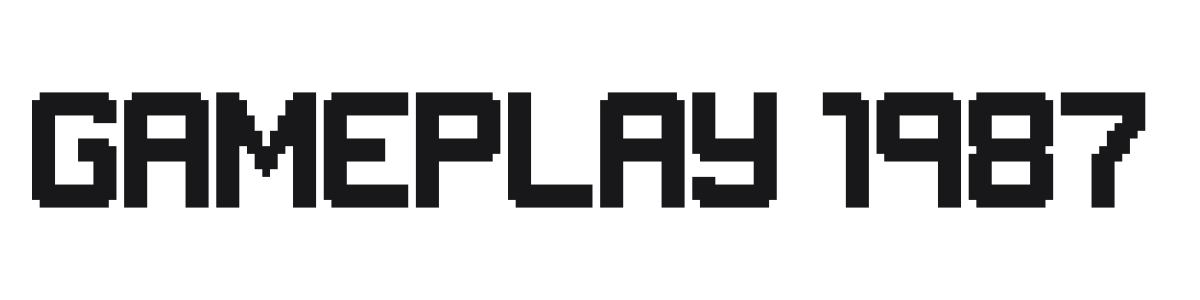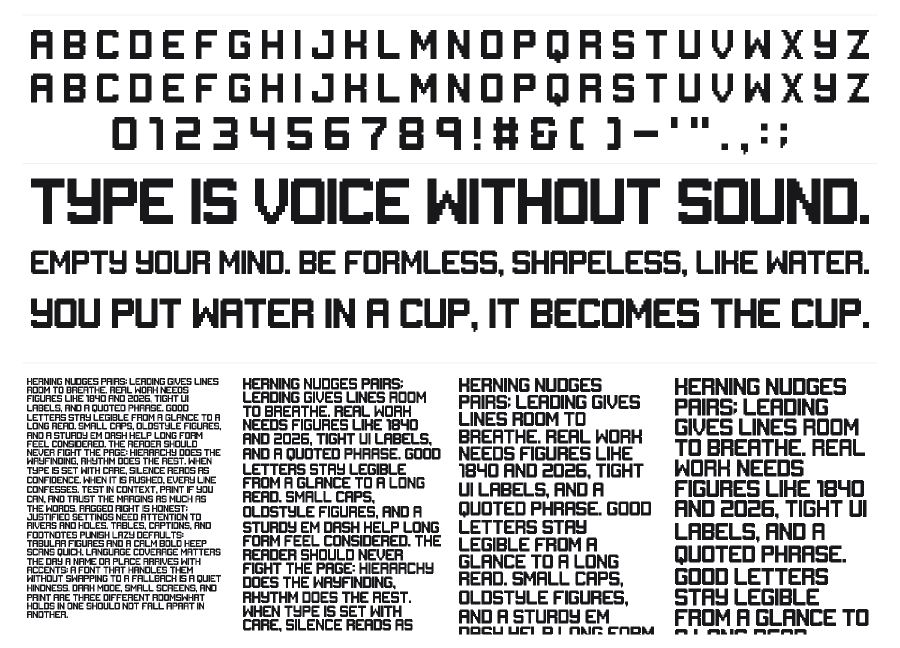
Gameplay 1987
Gameplay 1987 is a bold pixel-grid font built from square bitmap modules, channeling the look of late-1980s arcade screens and home computer displays. Its heavy, condensed forms and hard right-angle construction make the retro gaming reference unmistakable. Strong as a headline or logo face anywhere that 8-bit nostalgia is the point.